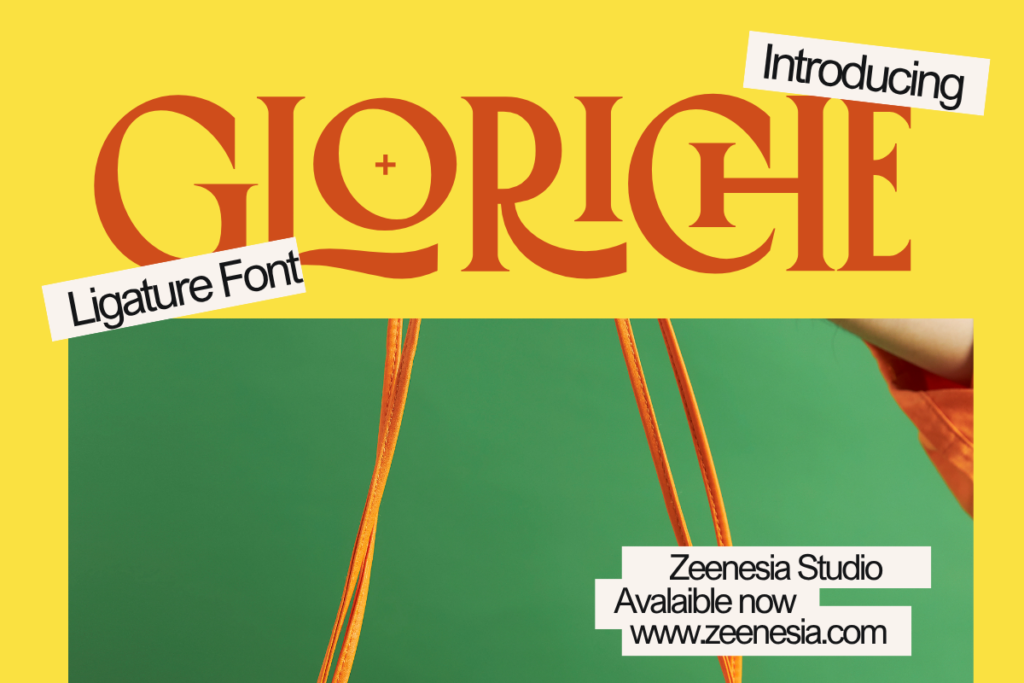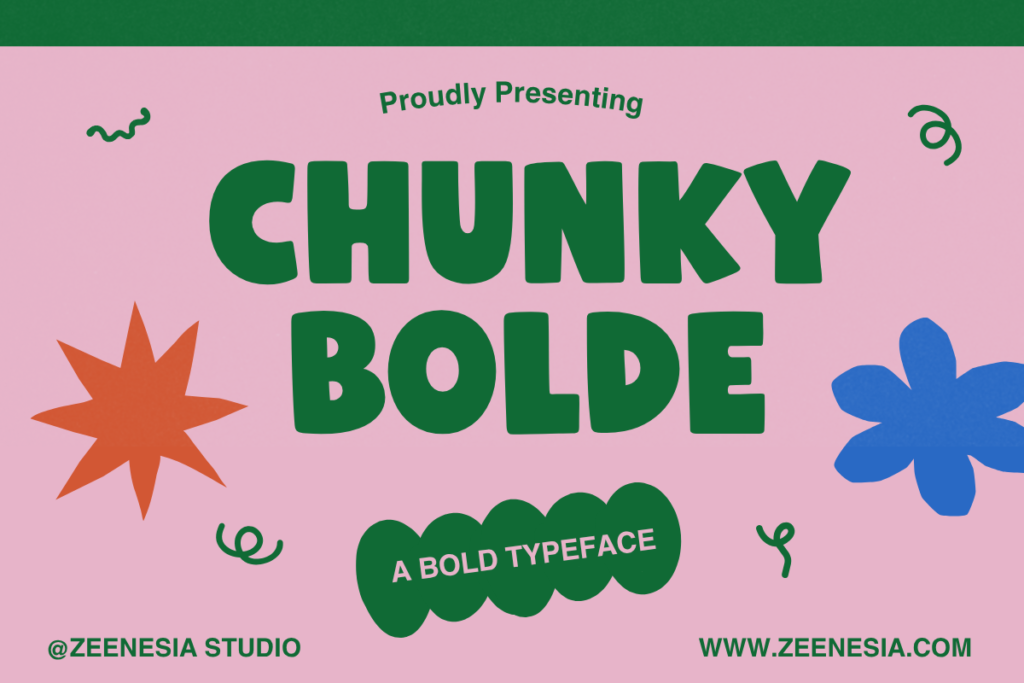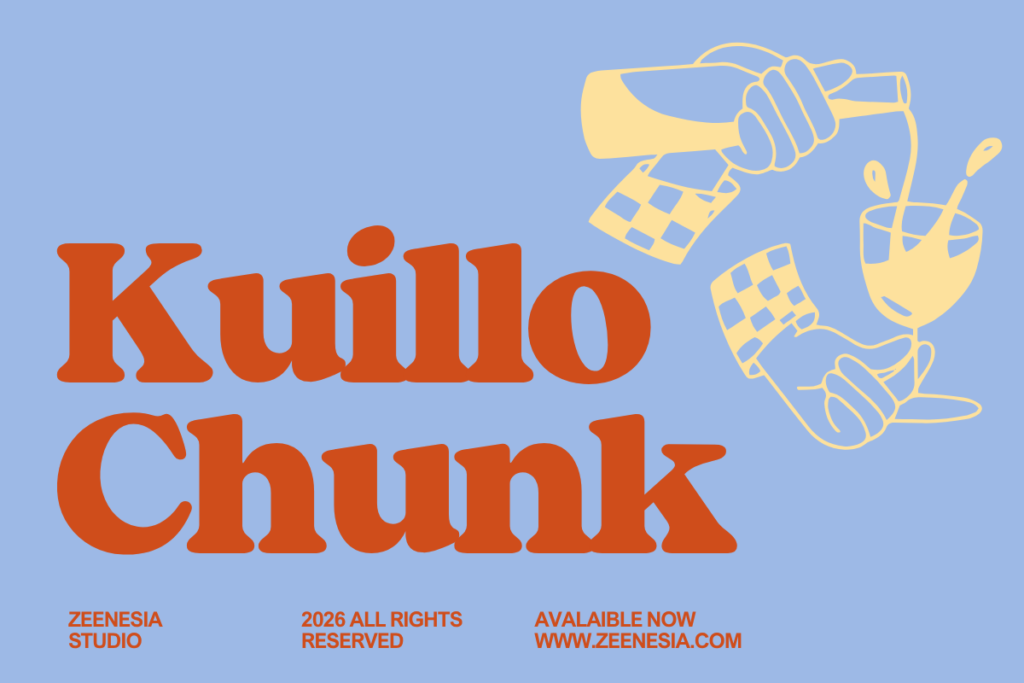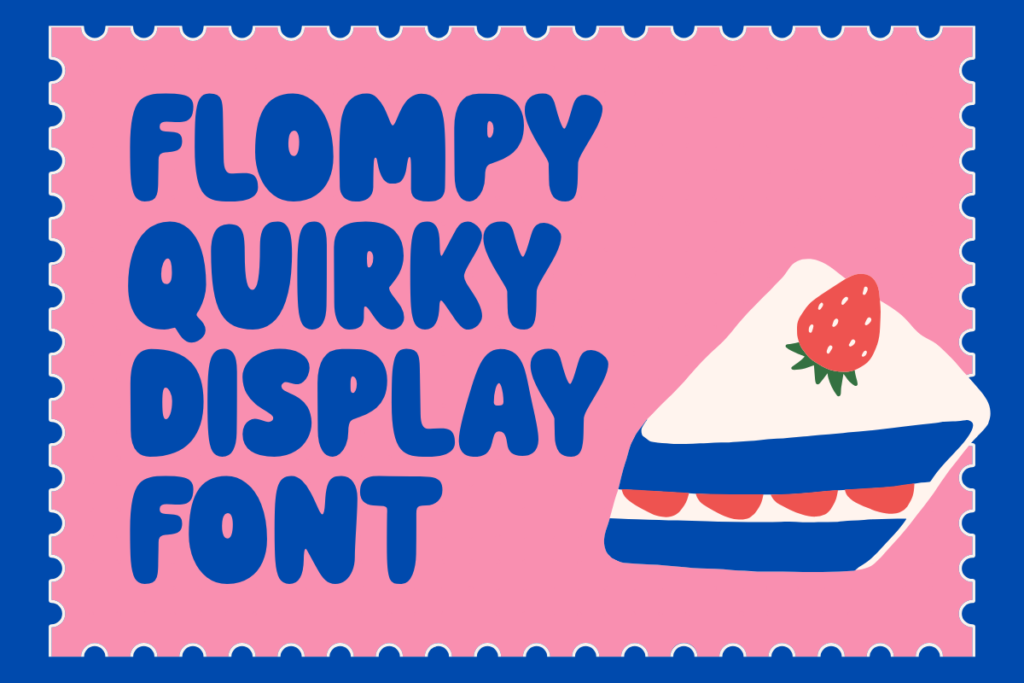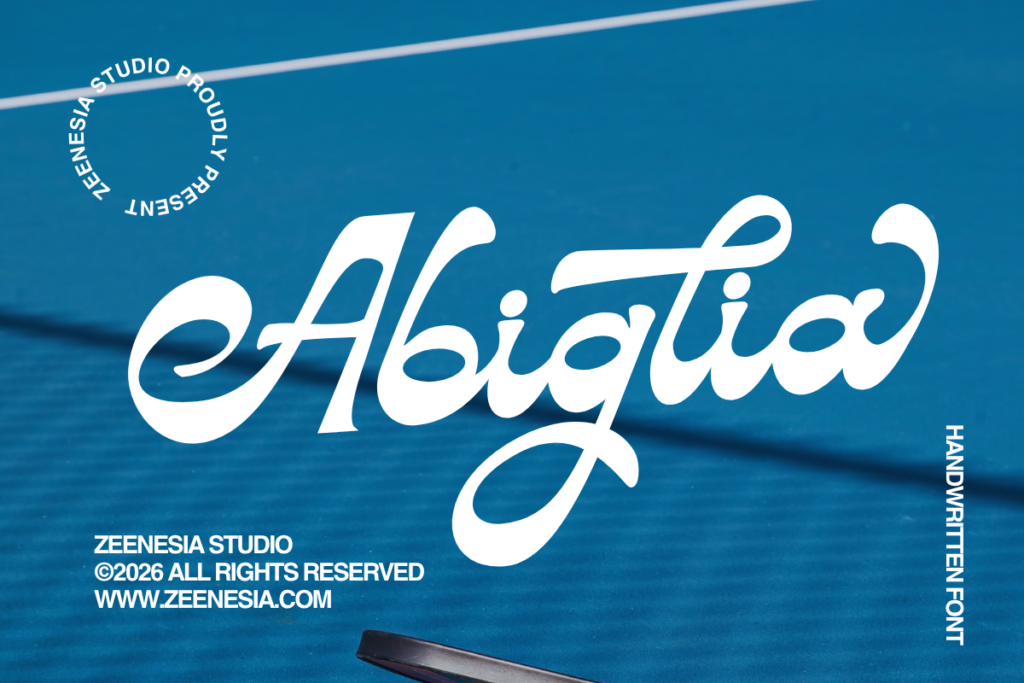
Aesthetic Fonts: 6 Beautiful Font Styles to Elevate Your Design Instantly
Typography plays a bigger role in design than many people realize. It does more than display words — it shapes emotion, builds visual identity, and helps people instantly recognize the personality of a brand.
Whether you’re designing a logo, creating social media content, building packaging, or working on a poster, the right font can completely change how your design feels.
Among the most popular styles today are aesthetic fonts — typefaces that feel stylish, expressive, and visually appealing. They are often used to create designs that look modern, memorable, and emotionally engaging.
If you’re searching for beautiful fonts that can instantly improve your branding or creative work, here are 6 aesthetic font styles worth exploring.
What Is an Aesthetic Font?
An aesthetic font is a typeface chosen not only for readability, but also for its visual mood and personality. It helps define the atmosphere of a design and often becomes one of the strongest visual elements in a project.
Aesthetic fonts are commonly used for:
- logo design
- brand identity
- social media graphics
- product packaging
- editorial layouts
- posters and print materials
- fashion and beauty content
What makes a font “aesthetic” can vary depending on style. Some are elegant and refined, while others are bold, playful, nostalgic, or artistic. The key is that they feel intentional and visually distinctive.
Why Aesthetic Fonts Matter in Design
Good typography helps your design communicate before anyone even reads the words.
A carefully chosen font can make a brand feel:
- luxurious
- playful
- modern
- feminine
- nostalgic
- bold
- creative
That’s why aesthetic fonts are so powerful. They don’t just decorate your layout — they help tell the story of your brand or project.
When used well, the right font can make your visuals feel more polished, more memorable, and more aligned with the audience you want to reach.
Aesthetic Font Styles to Inspire Your Next Design
1. Gloriche – Elegant Ligature Serif Font
If you’re looking for a font that feels sophisticated and high-end, Gloriche is a beautiful choice.
Gloriche is an elegant ligature serif font designed to bring a refined and luxurious touch to your typography. Its graceful letterforms and stylish ligatures make it especially effective for branding projects that need a premium visual feel.
This type of font works beautifully for clean layouts, editorial-style compositions, and modern luxury branding.
Best for:
- luxury branding
- fashion logos
- beauty and skincare packaging
- boutique brands
- editorial headlines
- elegant posters
Why it works
Gloriche creates a polished first impression. If your design needs to feel timeless, chic, and elevated, this style is an excellent option.
2. Chunky Bolde – Bold and Playful Display Font
If your project needs to stand out instantly, Chunky Bolde brings energy, confidence, and fun.
This bold display font features thick, rounded shapes that create a strong visual impact. It feels playful and modern, making it perfect for projects that need eye-catching typography and a cheerful personality.
Chunky display fonts are especially useful when the text itself needs to become part of the visual experience.
Best for:
- playful branding
- kids products
- food and beverage packaging
- promotional posters
- social media campaigns
- bold logo concepts
Why it works
Chunky Bolde is ideal for high-visibility designs. It grabs attention quickly and gives your layout a friendly, energetic feel.
3. Kuillo Chunk – Retro Aesthetic with Vintage Personality
Retro typography continues to be one of the strongest visual trends in branding, packaging, and merchandise design — and Kuillo Chunk captures that look beautifully.
This font combines a chunky structure with a nostalgic vintage feel, making it perfect for designs that want to feel expressive, memorable, and full of character.
Retro-inspired fonts are especially effective because they feel both familiar and visually unique.
Best for:
- retro logos
- vintage packaging
- café and restaurant branding
- apparel graphics
- merchandise design
- nostalgic posters
Why it works
Kuillo Chunk brings warmth and personality to a design. It’s a great choice when you want typography that feels bold, fun, and full of charm.
4. Flompy – Quirky Display Font for Fun and Creative Visuals
Some of the most engaging designs are the ones that don’t take themselves too seriously. That’s exactly where Flompi shines.
Flompy is a quirky display font with a fun and cheerful personality. It adds a playful mood to any design and helps create visuals that feel creative, youthful, and full of life.
This kind of font is perfect for projects that want to feel less corporate and more expressive.
Best for:
- cute branding
- snack and food packaging
- party invitations
- kids-related design
- playful posters
- fun social media content
Why it works
Flompi instantly adds character. It helps a design feel more approachable, memorable, and emotionally engaging.
5. Abiglia – Stylish Script Font with Elegant Flow
For projects that need a softer, more graceful aesthetic, Abiatia offers a beautiful script style with expressive curves and elegant movement.
This font is ideal for creating a handwritten or signature-inspired look. It feels personal, stylish, and polished — perfect for brands or visuals that want to communicate beauty, warmth, and sophistication.
Script fonts remain a favorite for feminine and premium branding because they add emotion and visual elegance.
Best for:
- signature logos
- feminine branding
- wedding designs
- boutique packaging
- fashion and beauty visuals
- elegant social media content
Why it works
Abiatia adds flow and personality to typography. It’s especially effective when you want your design to feel graceful, stylish, and distinctive.
How to Choose the Right Aesthetic Font
Choosing the right font depends on the message you want your design to communicate.
A beautiful font is only effective when it supports the personality of the brand or project behind it.
Here’s a simple way to decide:
Choose a serif font like Gloriche if you want:
- elegance
- sophistication
- luxury branding
- editorial appeal
Choose a soft aesthetic style if you want:
- trendy visuals
- social media friendliness
- curated lifestyle branding
Choose a bold display font like Chunky Bolde if you want:
- strong visual impact
- fun and energetic branding
- attention-grabbing headlines
Choose a retro style like Kuillo Chunk if you want:
- nostalgia
- vintage character
- expressive branding
Choose a quirky font like Flompi if you want:
- playful visuals
- cute and creative energy
- youthful branding
Choose a script font like Abiatia if you want:
- elegance
- femininity
- signature-style branding
The best aesthetic font is not always the trendiest one — it’s the one that helps your design communicate the right feeling.
Where to Use Aesthetic Fonts
Aesthetic fonts are incredibly versatile and can be used across many creative applications.
Popular uses include:
- logo design
- brand identity systems
- product packaging
- social media templates
- Pinterest graphics
- website headers
- promotional posters
- invitation design
- merchandise and apparel
The key is to use them with intention. Pairing the right font with the right layout, color palette, and imagery will always create stronger results.
Tips for Using Aesthetic Fonts Effectively
A beautiful font can easily lose its impact if it’s used without balance. To get the best result, keep these tips in mind:
1. Prioritize readability
Even decorative fonts should still be easy to read, especially in branding and promotional materials.
2. Let the font breathe
Use spacing and clean layouts to allow the font’s personality to stand out.
3. Pair with simple supporting fonts
A strong display or script font usually works best when combined with a clean secondary font.
4. Match the font to the brand mood
Don’t choose a font just because it’s trendy — choose one that fits the emotion and audience of the project.
5. Use typography as part of the visual identity
In many great designs, the font itself becomes one of the main design elements.
Final Thoughts
Aesthetic fonts are more than just beautiful typefaces — they are powerful creative tools that shape how a design feels and how a brand is remembered.
Whether you prefer the elegant sophistication of Gloriche, the trendy softness of a curated aesthetic font style, the bold playfulness of Chunky Bolde, the retro charm of Kuillo Chunk, the quirky energy of Flompi, or the graceful flow of Abiatia, each font offers a unique way to bring personality into your work.
The right font can elevate a design instantly — not just by making it look better, but by making it feel more intentional, more emotional, and more memorable.
If you’re building a brand, designing a poster, or simply searching for typography inspiration, exploring aesthetic fonts is one of the best places to start.